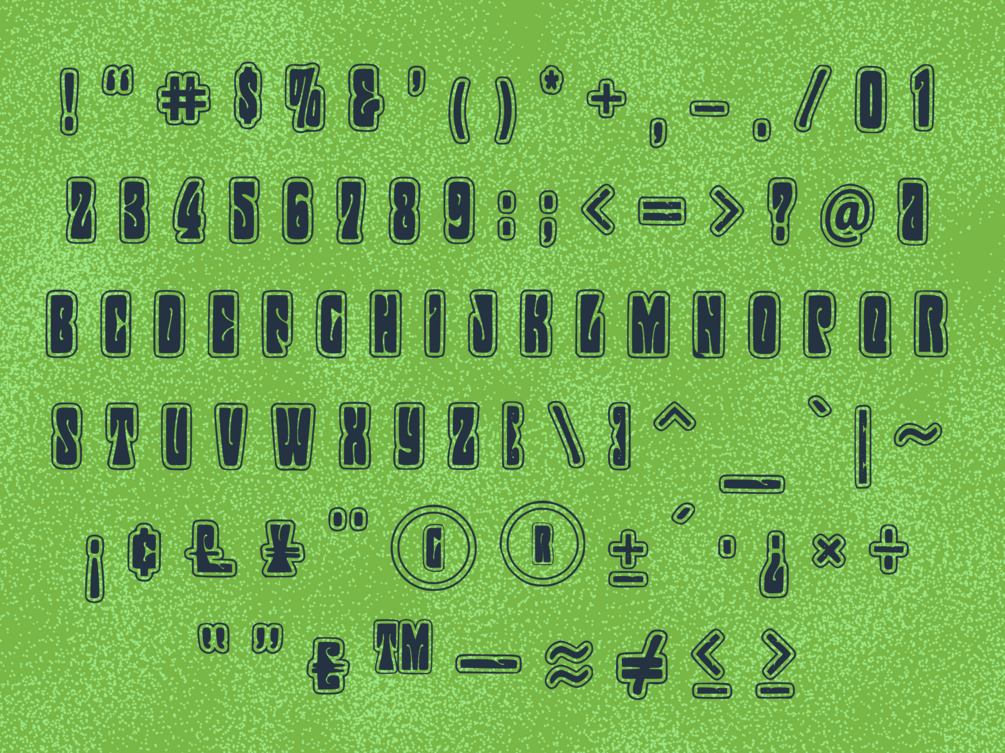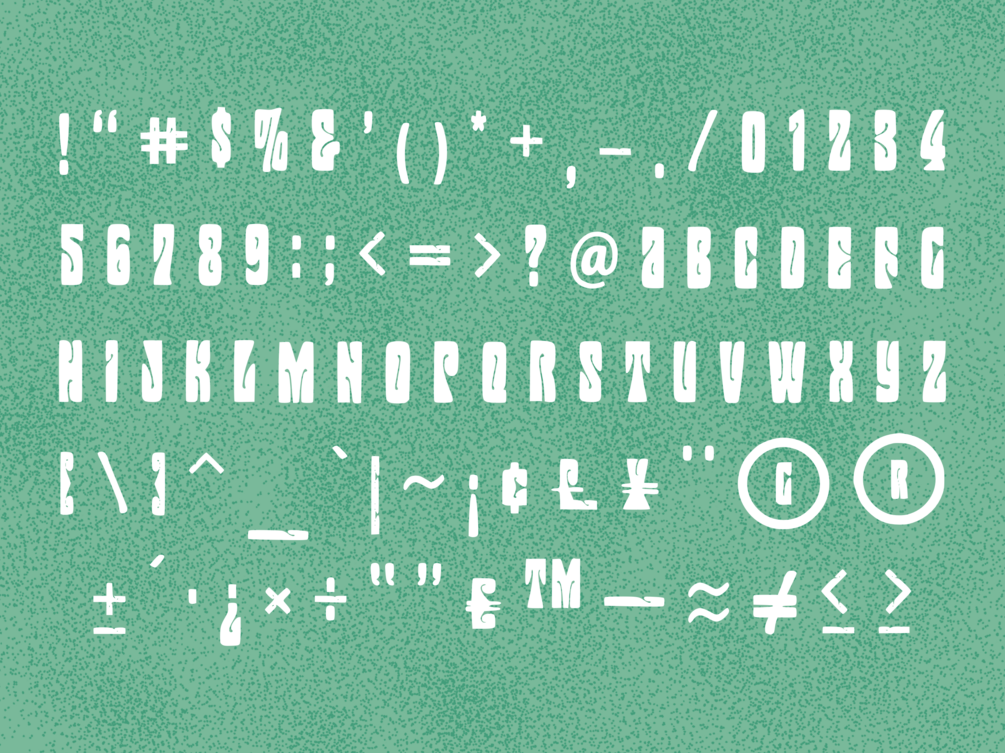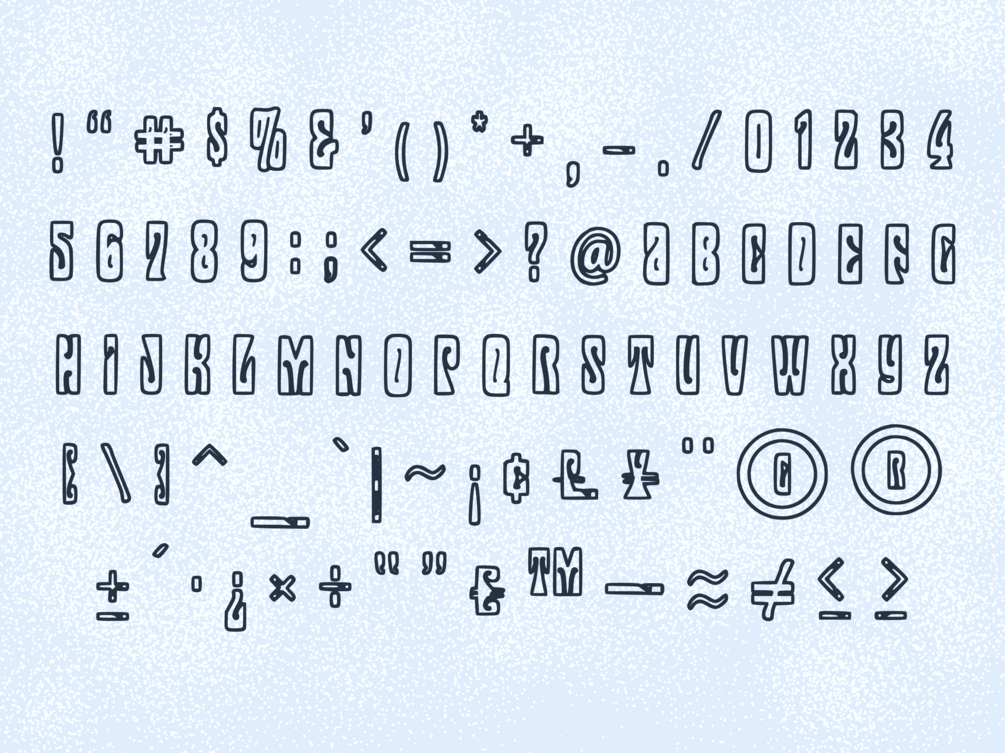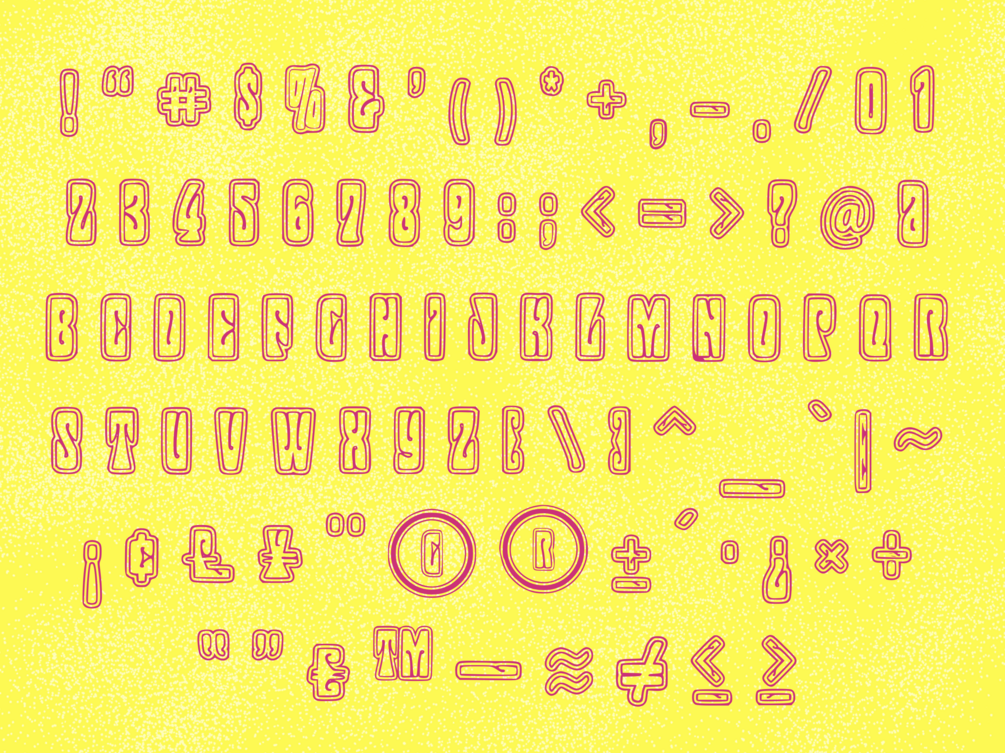
Funkadelic
Funkadelic is a retro display font family consisting of four typefaces. Each version consists of 88 glyphs with full English Language character support and unique, funky vibes. Made up of 4 typefaces total.
Funkadelic Font Family